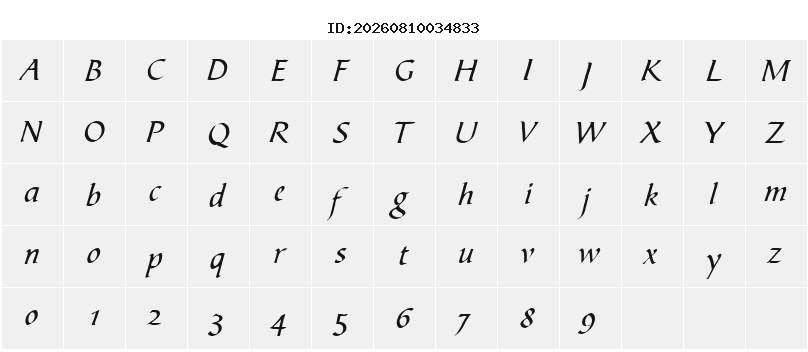
• Font Name: PT Diploma
• Full Font Name: PT Diploma
About PT Diploma.ttf
PT Diploma.ttf is a modern, elegant sans-serif font designed for ultimate readability and visual harmony. Perfect for branding, headlines, web design, and print materials.